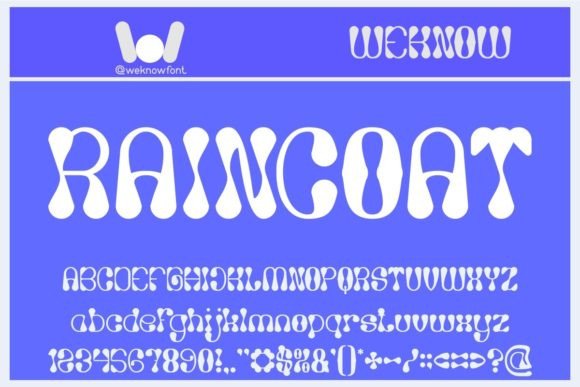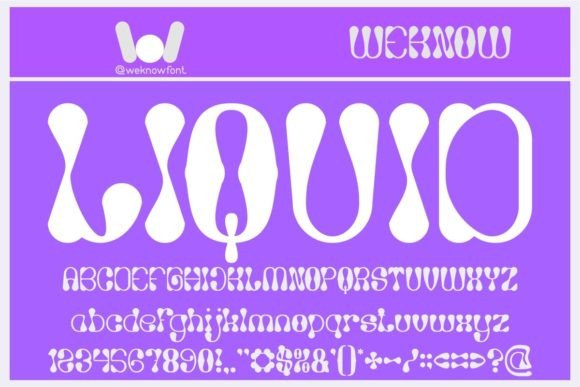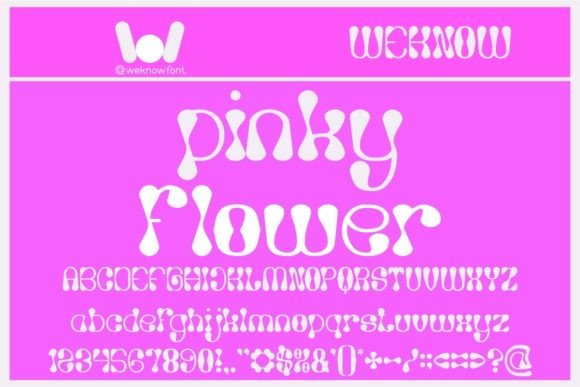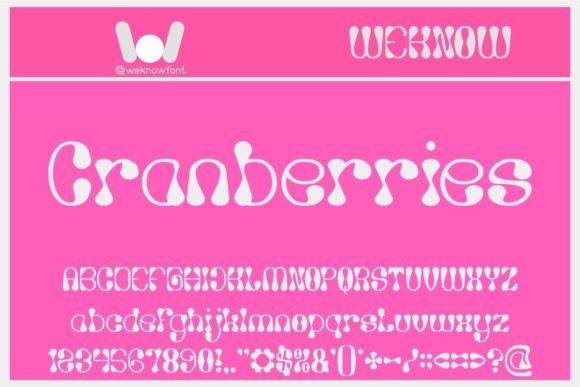
Introduction to Rainy Day on Thursday Font
Rainy Day on Thursday is a unique and fun display font.
With its stylish and retro characters, this font has the potential to elevate any creation .
Key Features of Rainy Day on Thursday Font
Why Choose Rainy Day on Thursday Font?
Rainy Day on Thursday Font offers exceptional quality and versatility, making it a valuable addition to your design toolkit. Whether you’re creating for personal projects or commercial use, Rainy Day on Thursday Font delivers professional results.